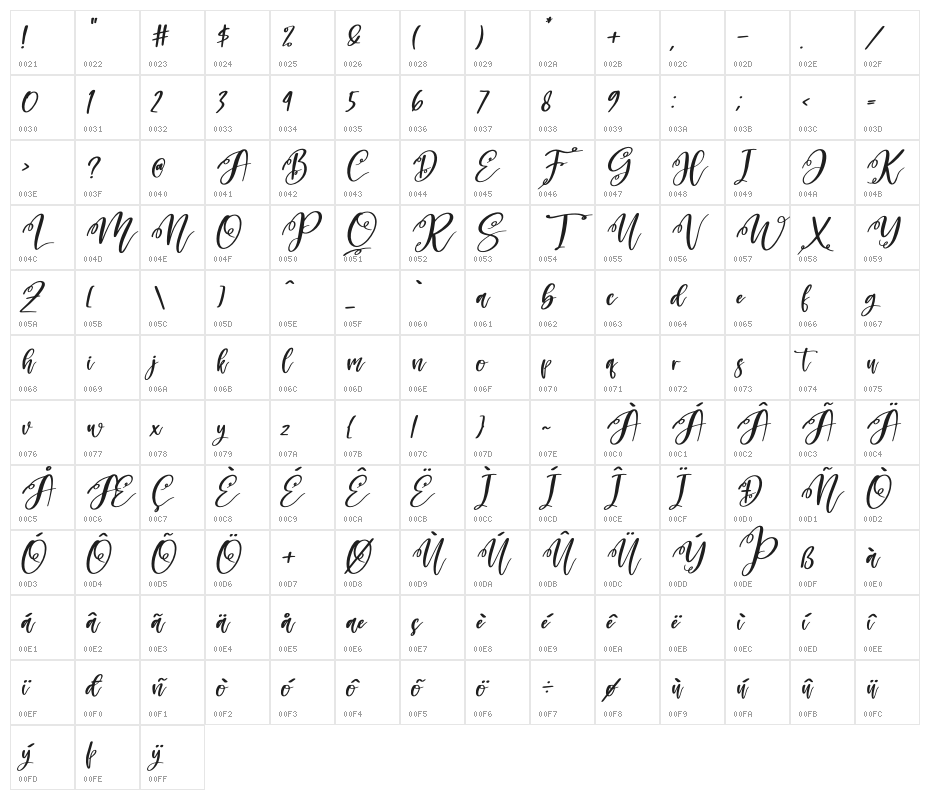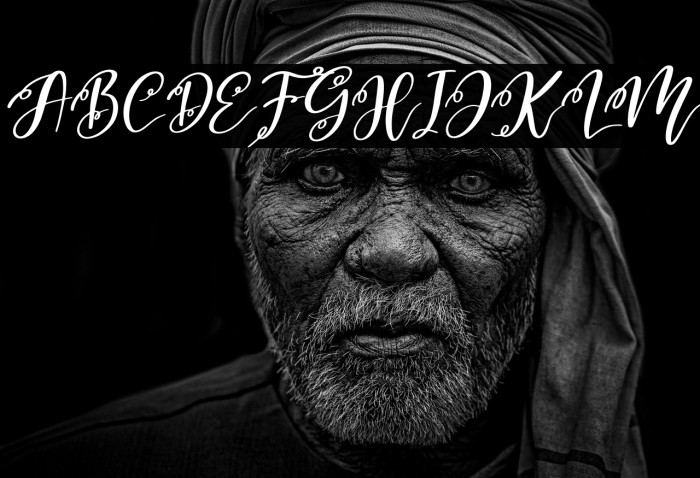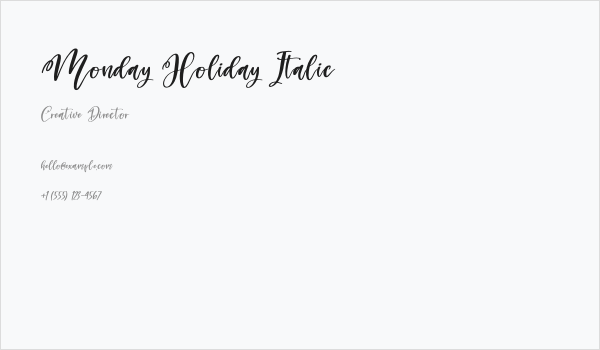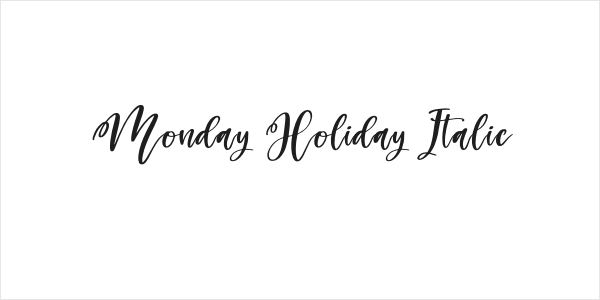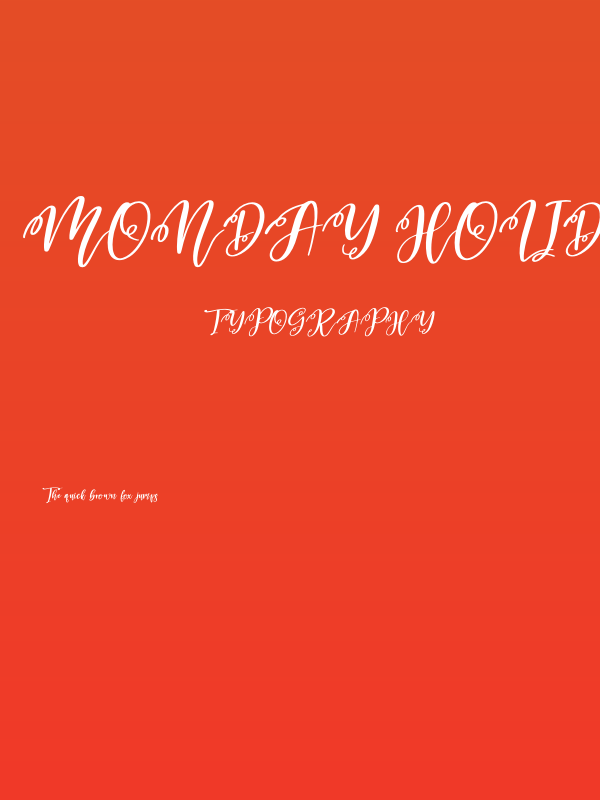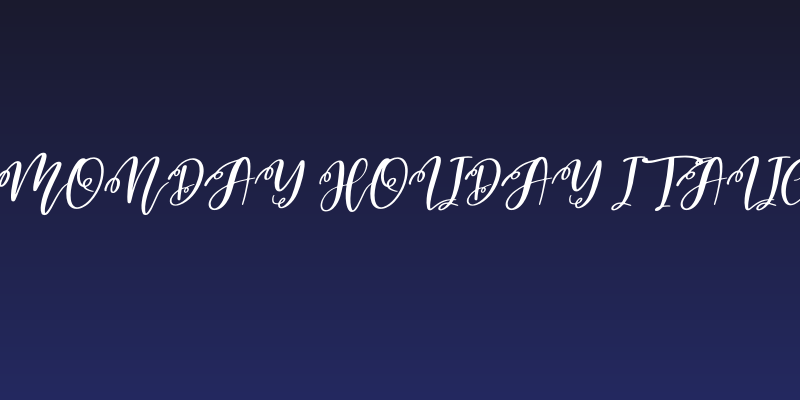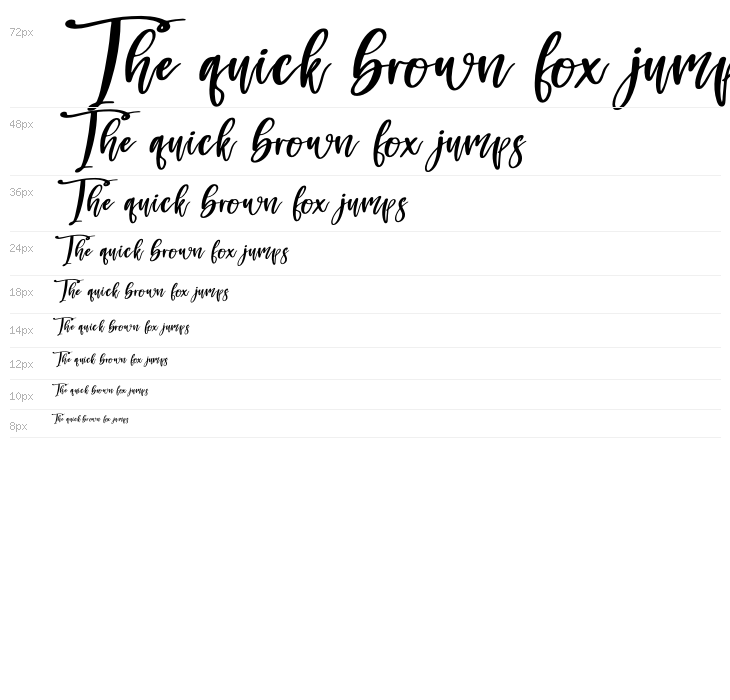
Monday Holiday Italic Font
Monday Holiday Italic Description
This font exudes a playful and elegant charm, characterized by its flowing, cursive script style. The letters are interconnected with smooth, sweeping strokes that give it a handwritten feel. The uppercase letters are adorned with decorative swashes, adding a touch of sophistication and flair. The lowercase letters maintain a consistent flow, enhancing readability while retaining an artistic touch. Numbers and special characters are crafted with the same attention to detail, ensuring a cohesive look across all elements. This font is perfect for projects that require a personal, yet stylish touch.